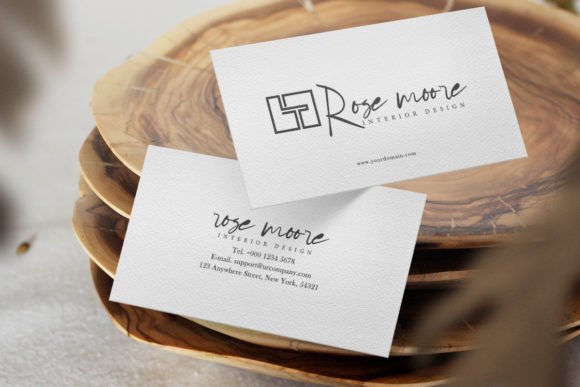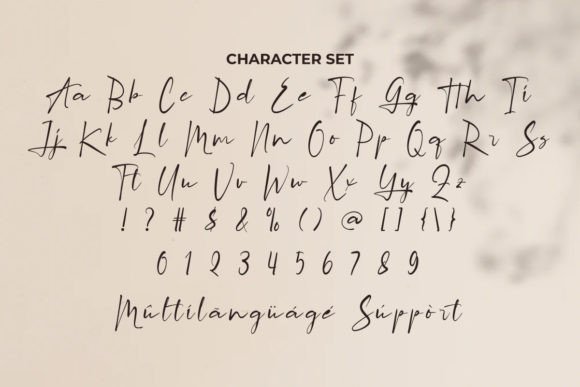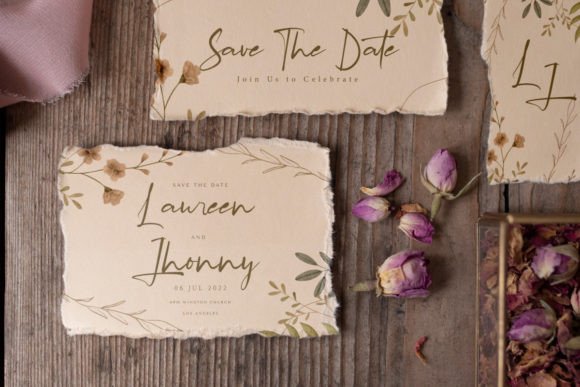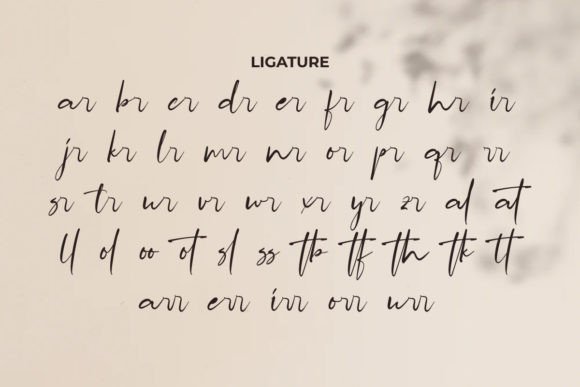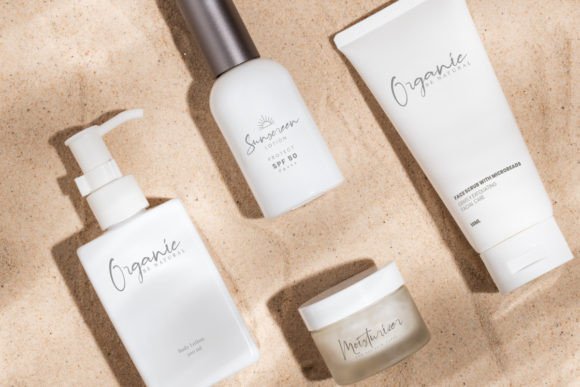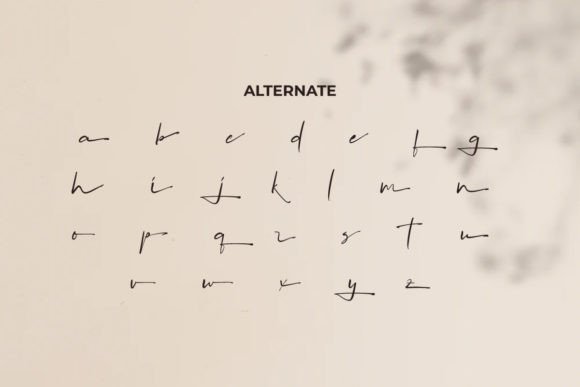
The Agnes Martha Font: A Modern Script with a Personal Touch
I’ll never forget the moment I stumbled upon the Agnes Martha font. I was working on a branding project for a boutique client, and I was on the hunt for a script font that would capture the essence of her handmade products. I’d scoured through countless font libraries, but nothing seemed quite right – until I saw Agnes Martha. Its unique, hand-drawn style created with an ink pen immediately caught my eye, and I knew I’d found the perfect fit.
A Closer Look: What I Love About Agnes Martha
The Agnes Martha font has a sophisticated feel, while still maintaining a casual and approachable appearance. Here are a few things that I love about this font:
- ✨ Unique hand-drawn style with a slight bounce that adds personality to the text
- ✅ Flowing, cursive letterforms that are perfect for creating a sense of elegance
- ✅ Sophisticated feel that’s still casual and approachable
- ✨ Perfect for branding, invitations, and other designs that require a personal touch
Honest Review: A Few Quirks to Consider
While I adore the Agnes Martha font, there are a few quirks to consider:
- ⚠️ Some letters may appear a bit inconsistent due to the hand-drawn nature of the font
- 🤔 Limited availability of certain OpenType features, such as ligatures
The Story Behind Agnes Martha
Agnes Martha was designed with the intention of creating a modern script font that captures the essence of hand-drawn typography. The designer aimed to create a font that would be both elegant and approachable, perfect for designs that require a personal touch. With its unique, hand-drawn style and flowing letterforms, Agnes Martha is sure to add a touch of sophistication to any design.
| What type of designs is Agnes Martha best suited for? | Agnes Martha is perfect for branding, invitations, and other designs that require a personal touch. Its elegant, yet approachable feel makes it suitable for a range of creative projects. |
| Does Agnes Martha support OpenType features? | Agnes Martha supports some OpenType features, such as bold and italic styles. However, it may not support more advanced features like ligatures. |